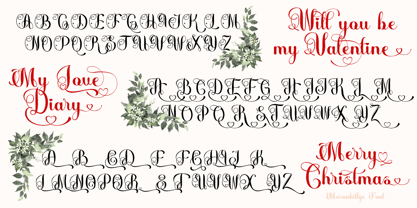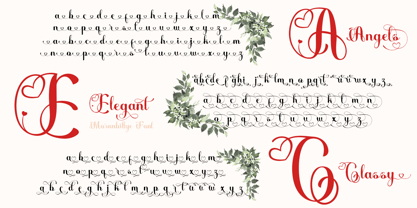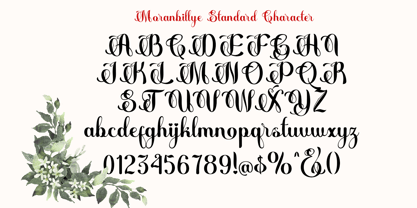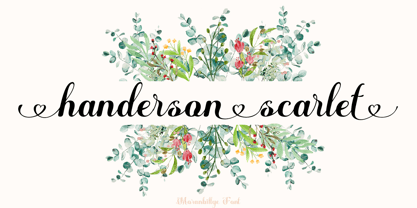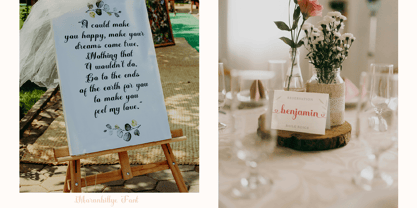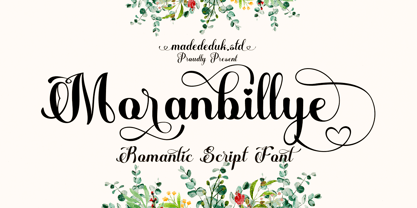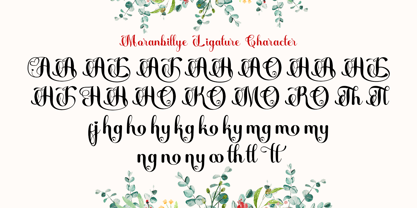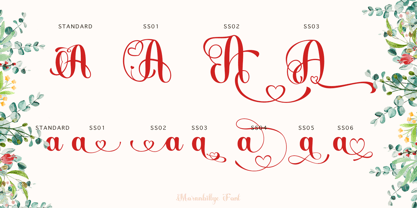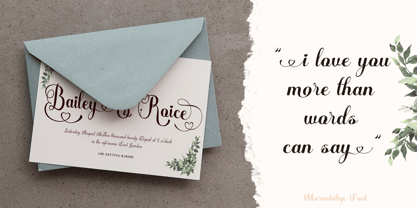
Moranbillye
by madeDeduk
The Moranbillye Font Family was designed by madededuk and published by madeDeduk. Moranbillye contains 2 styles and family package options.
Moranbillye is a heart script font inspired by classical calligraphy. Crafted with thin consistent strokes, this beautiful script font evokes a sense of romance, luxurious and classy. It’s easy to read yet full of personality, or any projects that demand classic with modern style. Is perfectly suited for branding, logotypes, quotes, labels, social media posts, advertisements, product packaging, logo designs, poster, photography, invitation, stationery and whether you’re creating digital content or printed materials.
Designers: madededuk
Publisher: madeDeduk
Foundry: madeDeduk